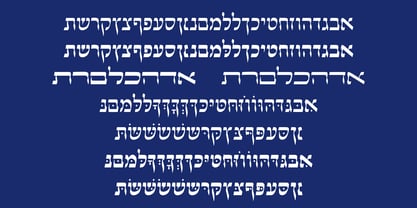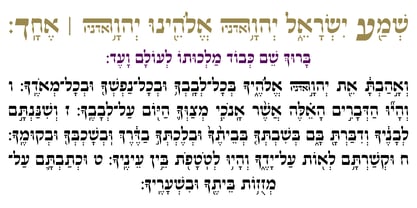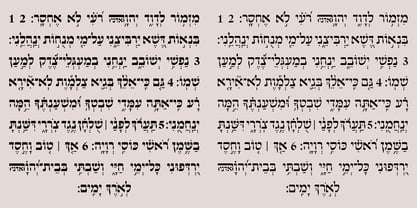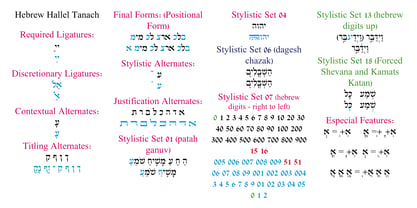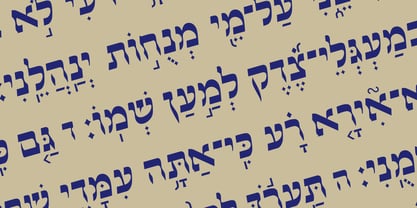
Hebrew Hallel Tanach
by Samtype
The Hebrew Hallel Tanach Font Family was designed by Sami Artur Mandelbaum and published by Samtype. Hebrew Hallel Tanach contains 2 styles and family package options. More about this family
This is a Beautiful calligraphic font, good for posters, books, and folders. This is a complete font with all diacritic marks (Nikud and Taamim), Shevana, Kamatz Katan, Dagesh Chazak, and Holam Chaser. You can make a Tanakh if you want. Santype Foundry specializes in Hebrew type and complex OpenType features, including Discretionary Ligatures, Stylistic Sets, Contextual Alternates, Justification Alternates, and others.